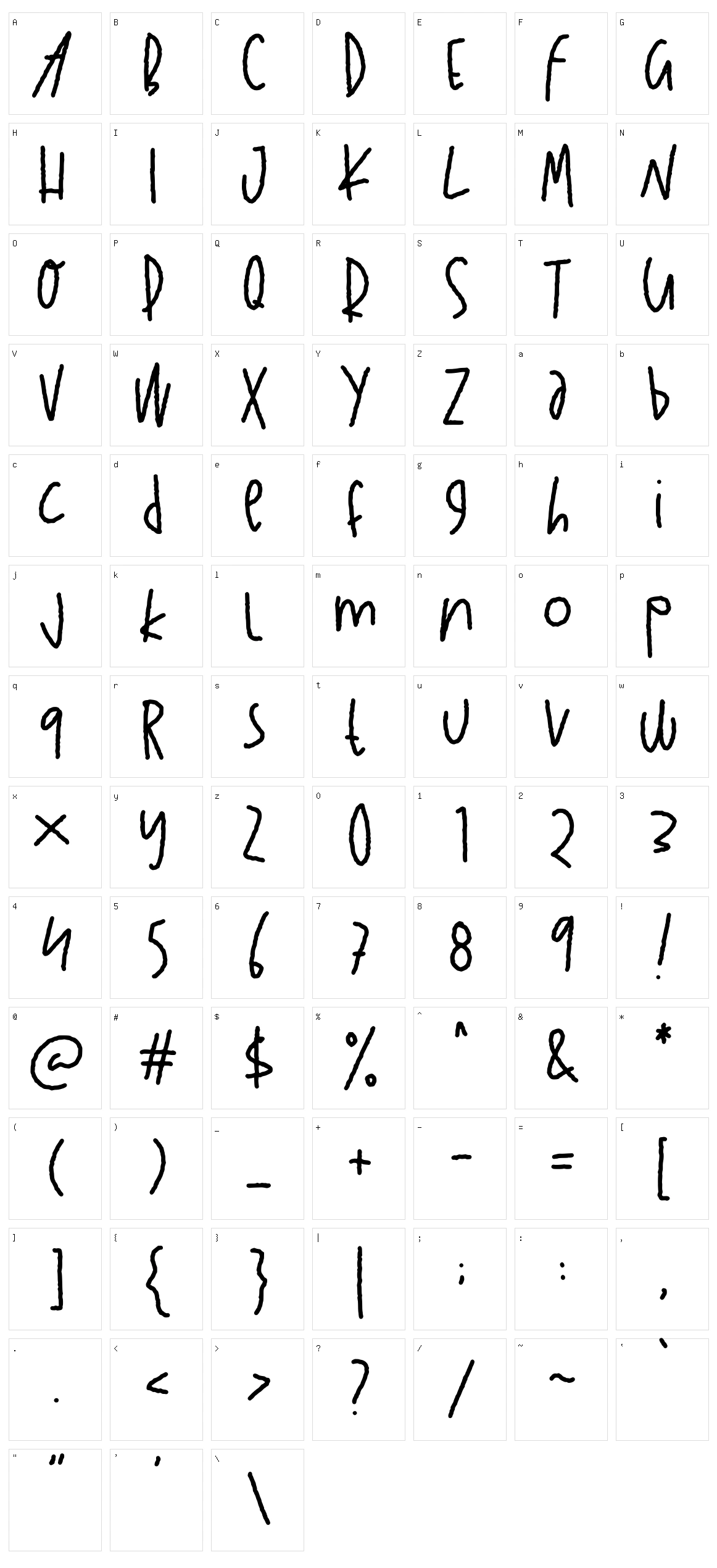
FARMHOUSE CHILDREN
- a playful handwritten font -
This font is designed for crafters
It is great for branding, packaging, quotes, t-shirt design, card, banner, and anything of craft project that needs kids style.
The combination of uppercase and lowercase is great, unique and very fun
Let's play with this awesome font!